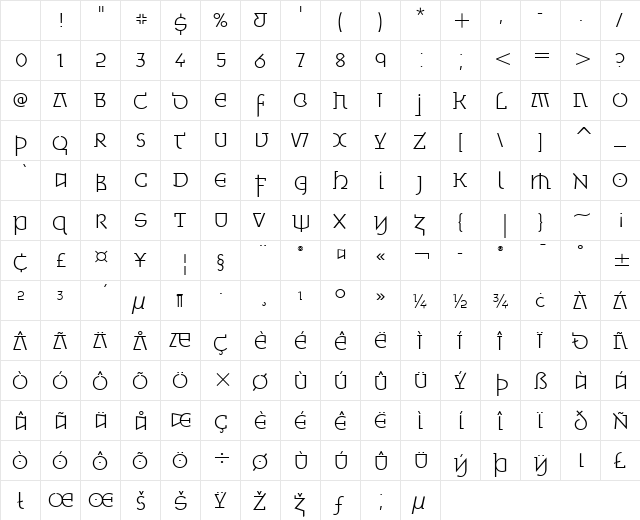
Minska ITC is a composed and adaptable typeface that performs quietly and consistently across a wide range of design contexts. Its slender proportions lend an understated elegance to any composition.